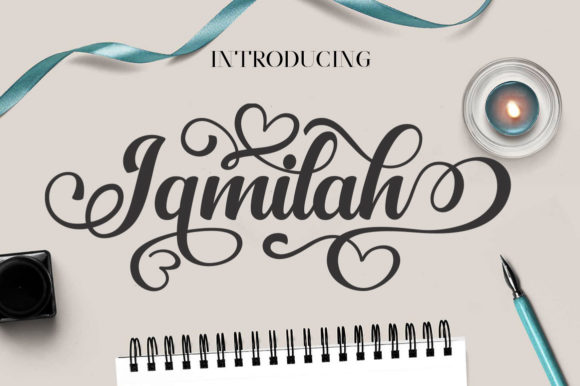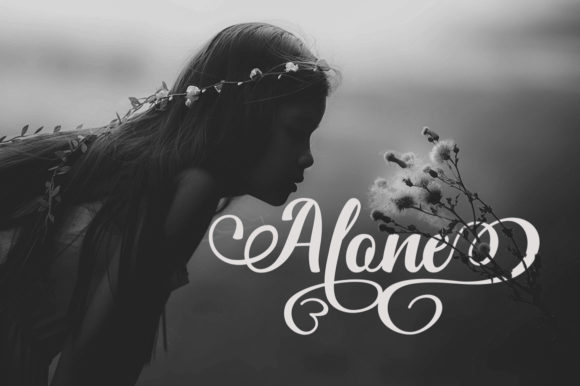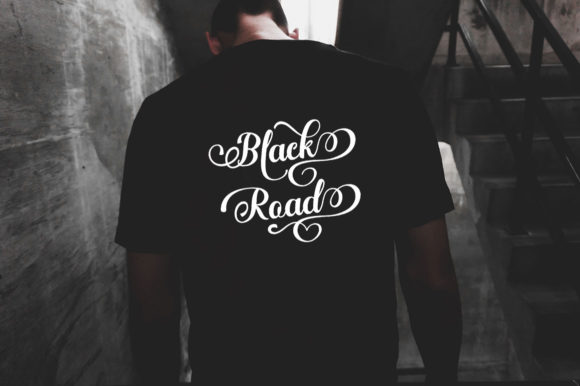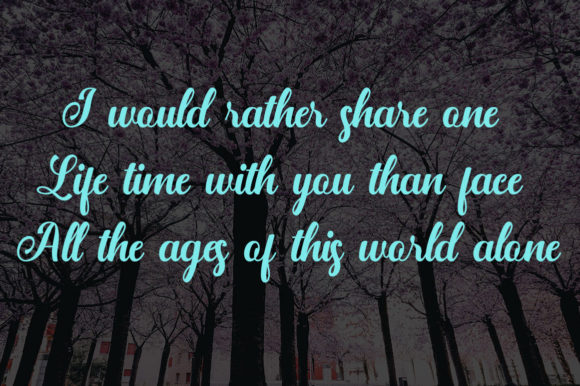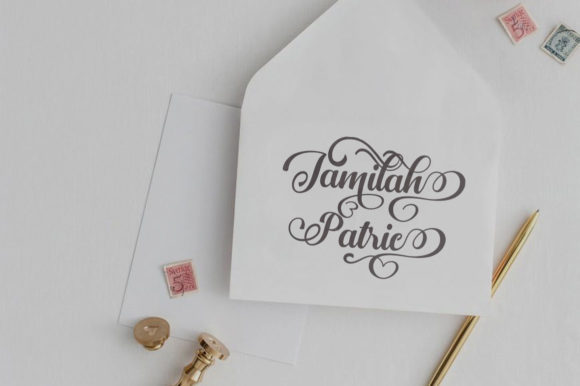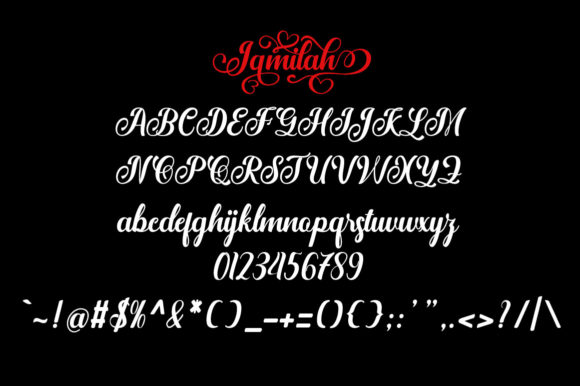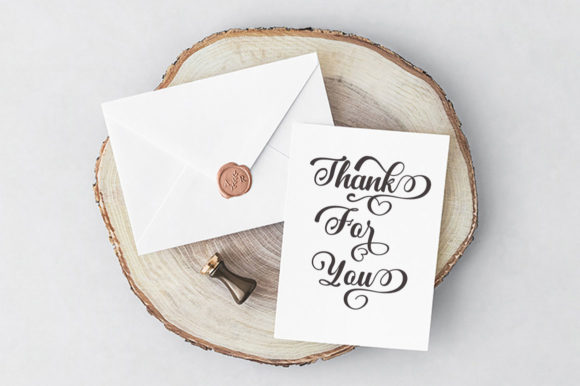
Jamilah Script Font
About Jamilah Script Font
Jamilah Script is a modern handmade calligraphy font. Fall in love with its unique character and eye-catching appeal.